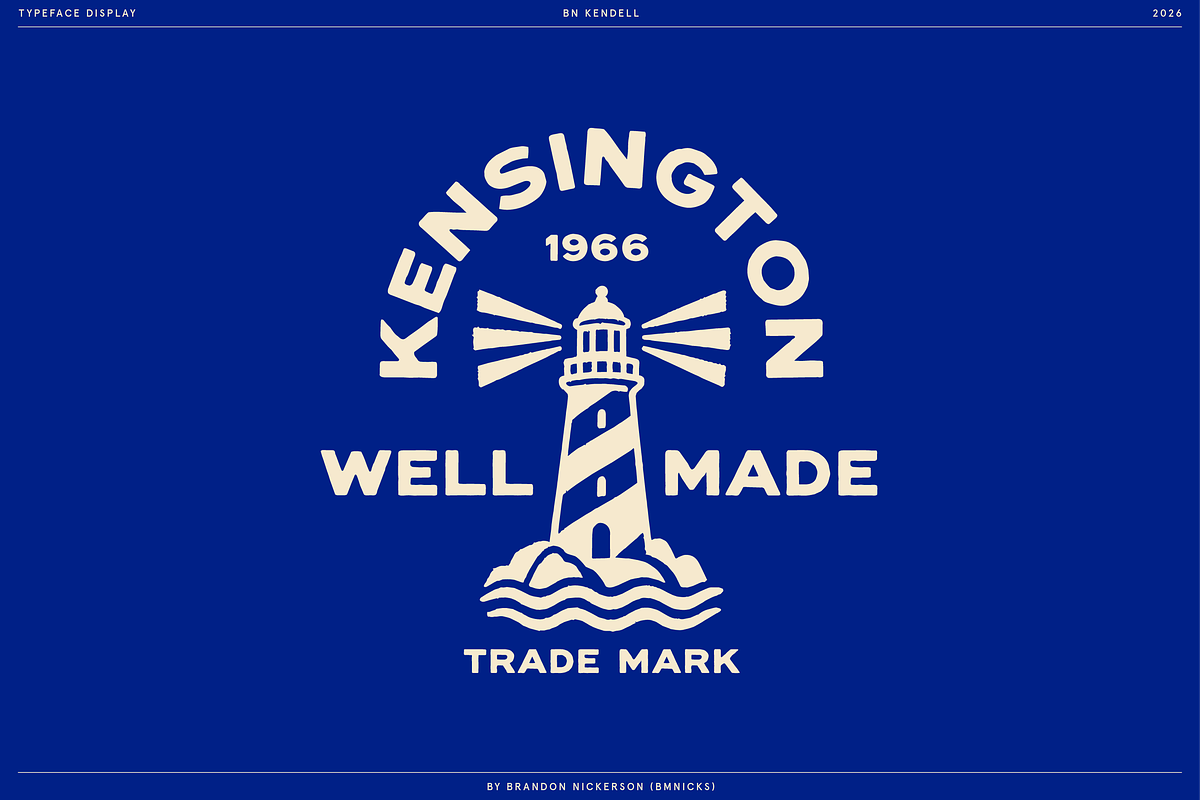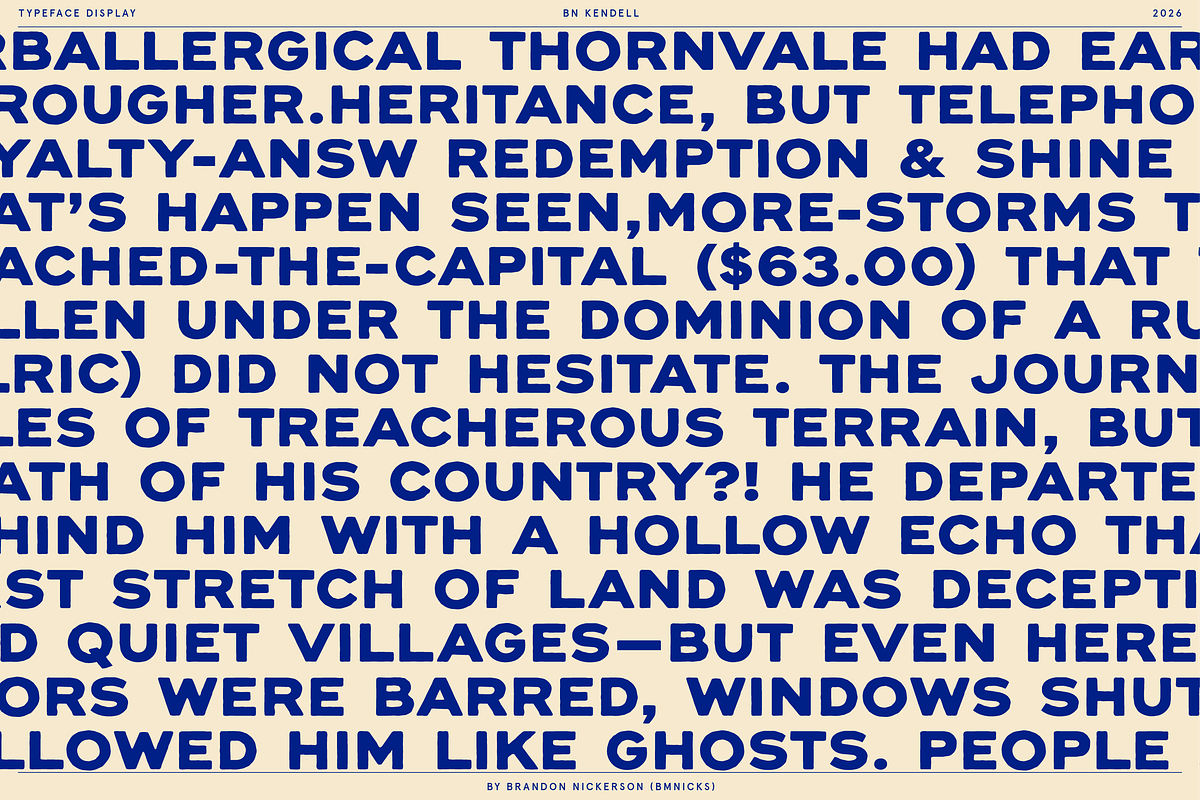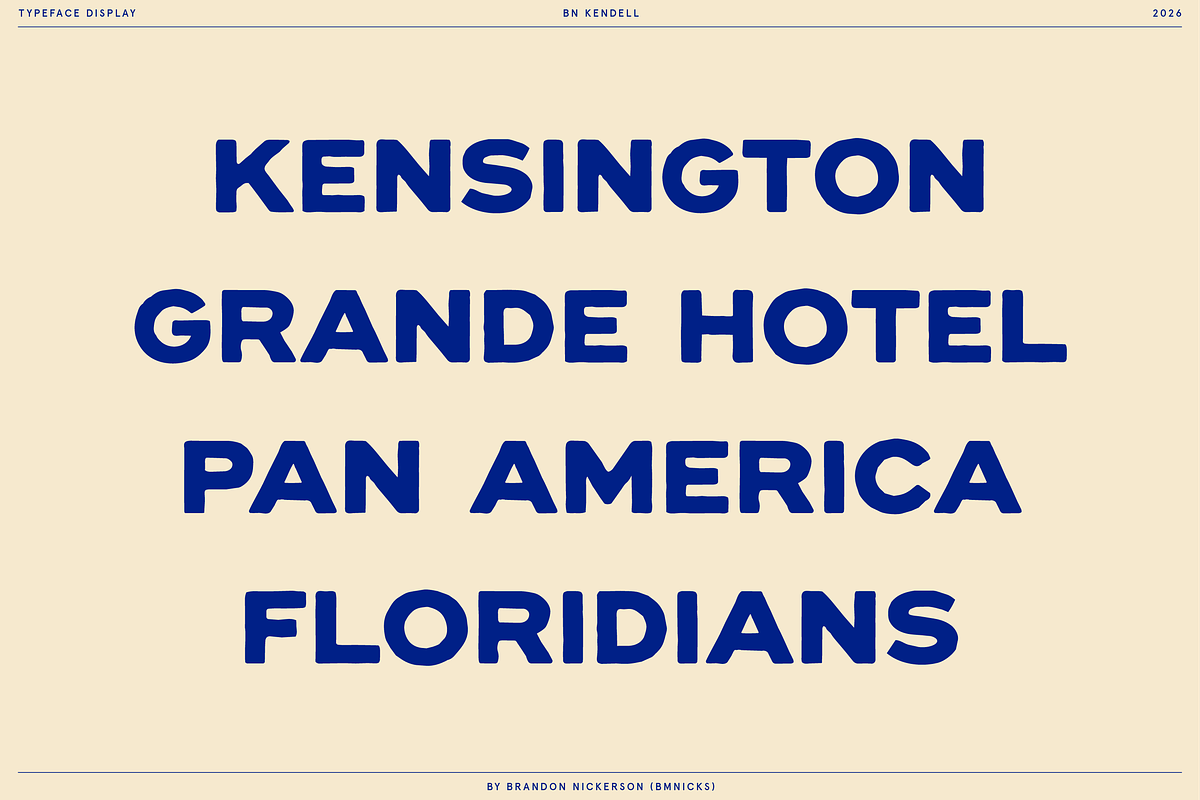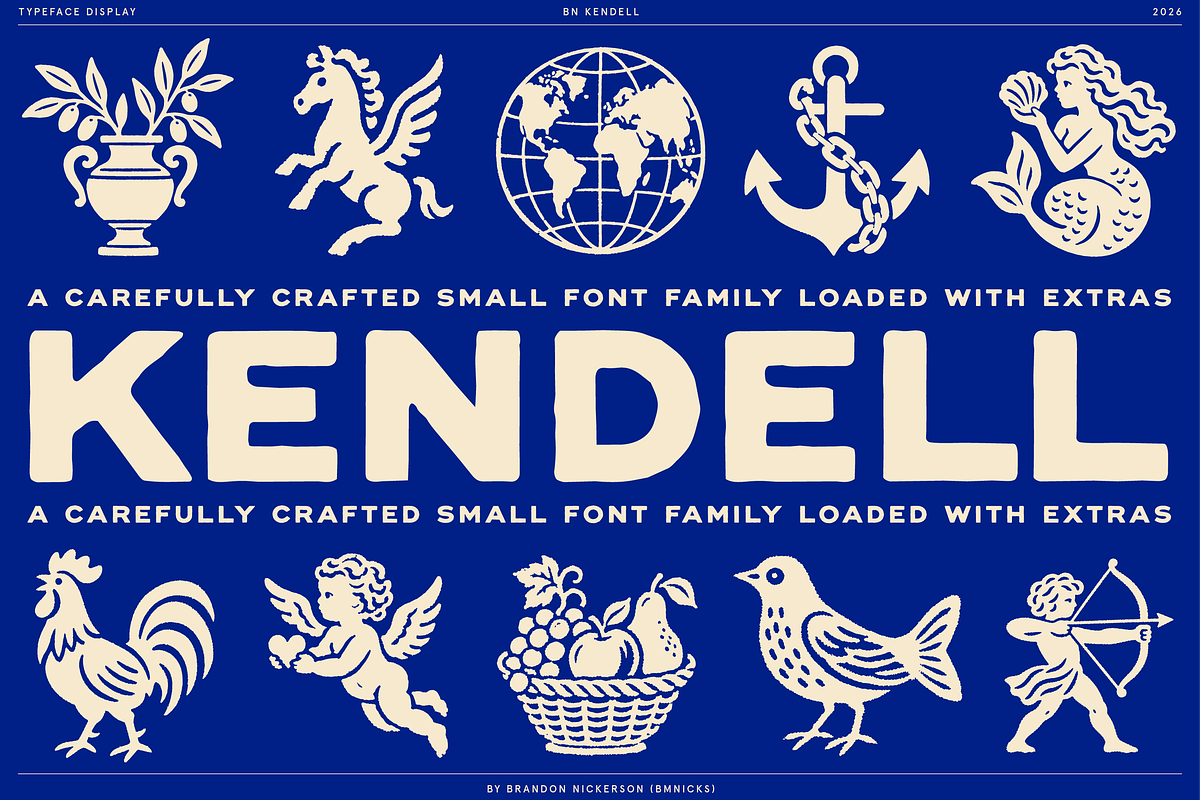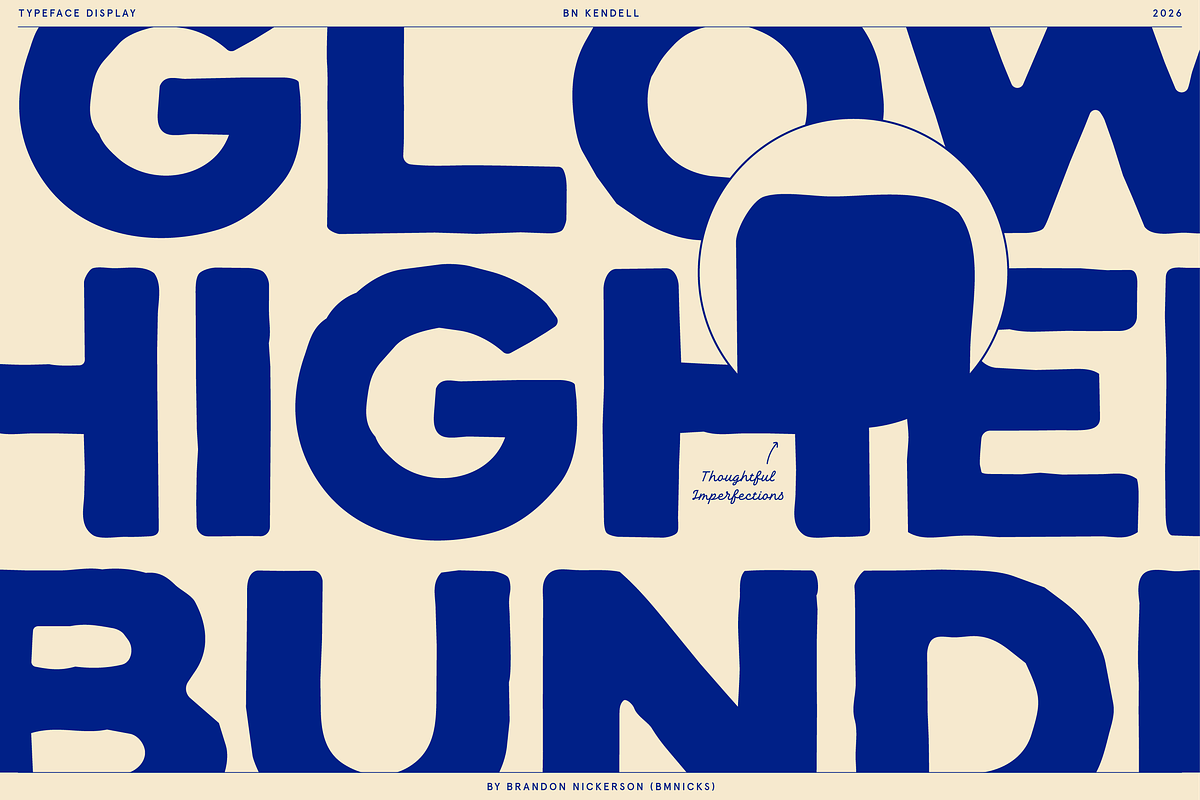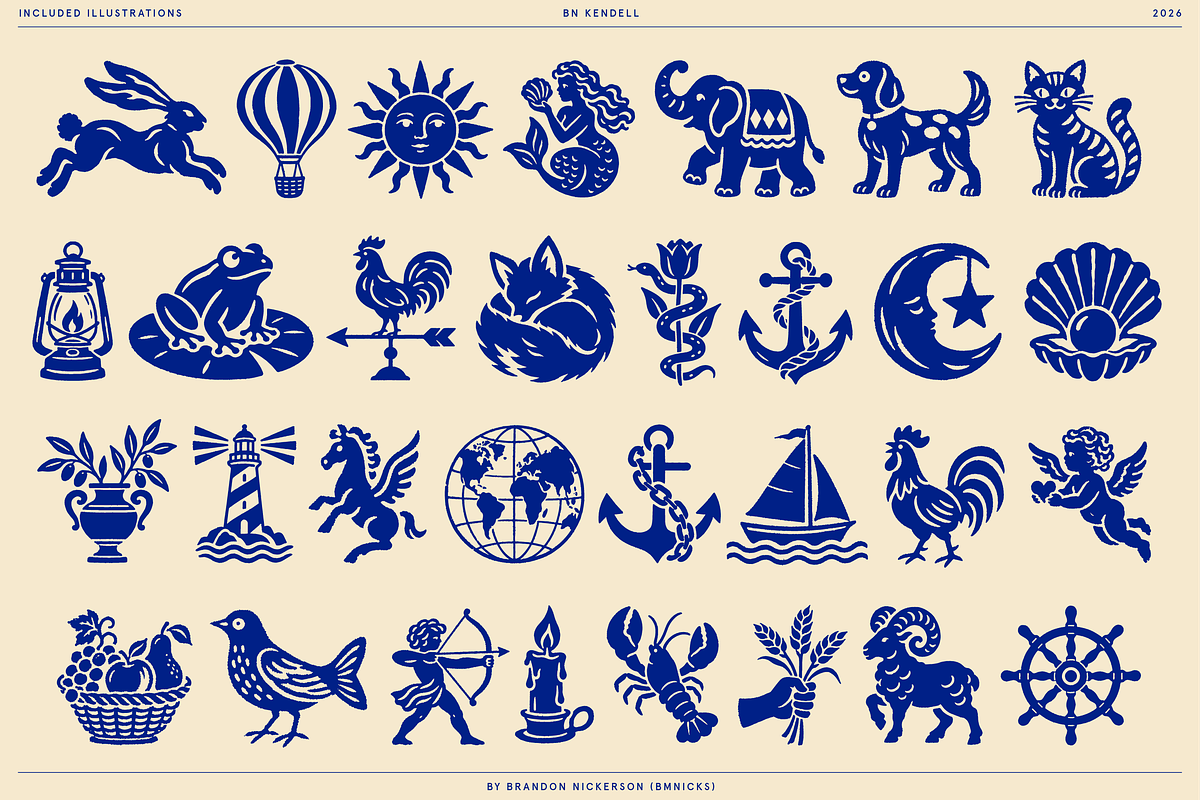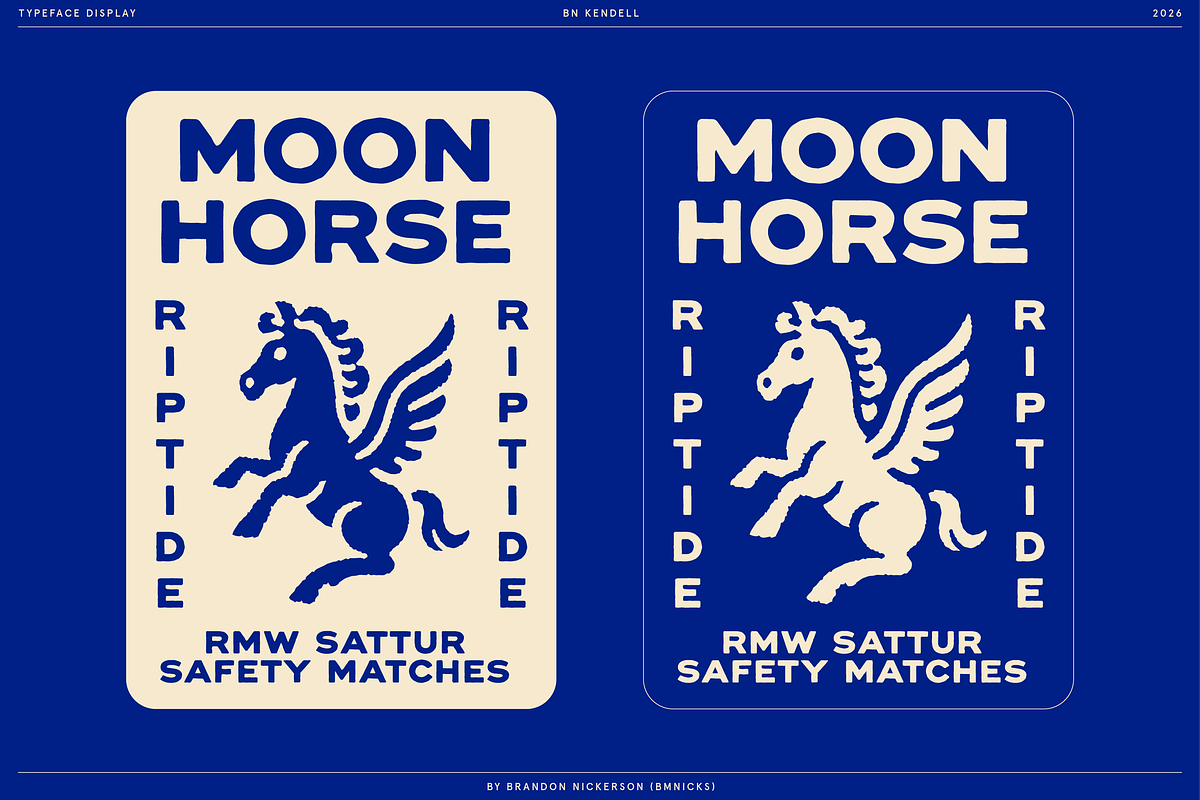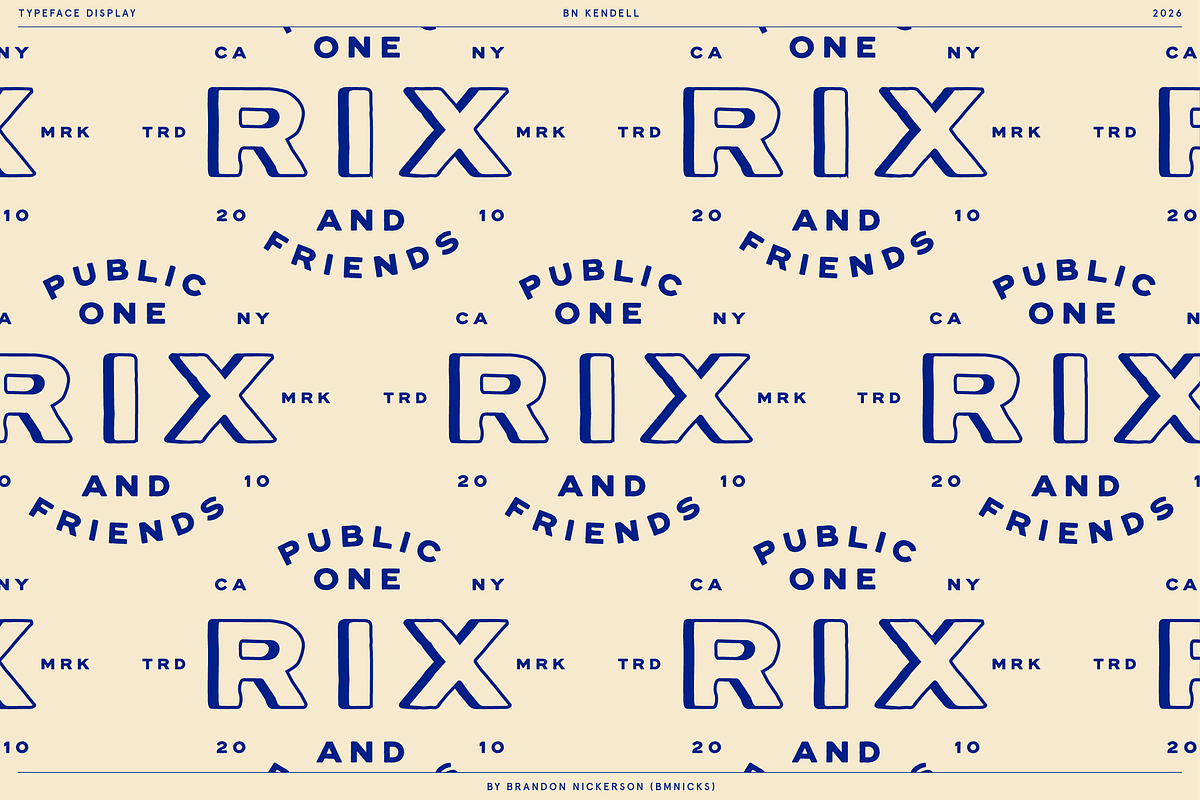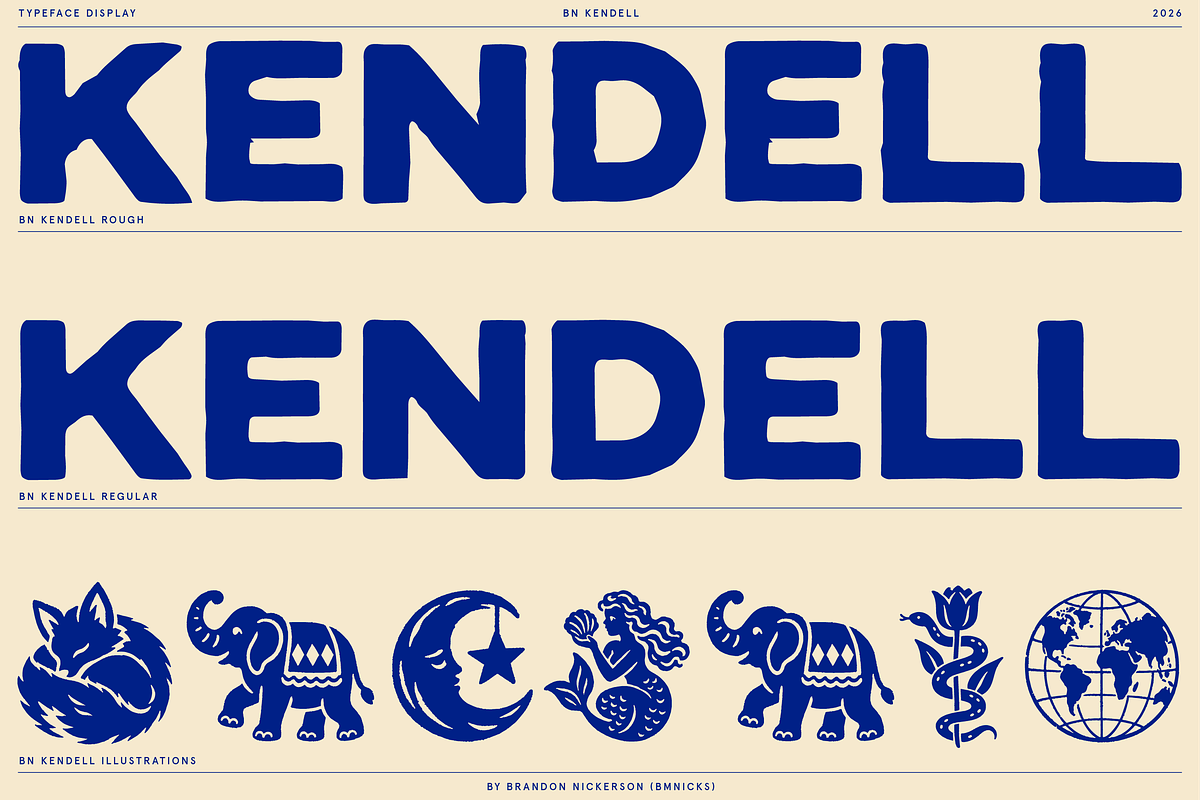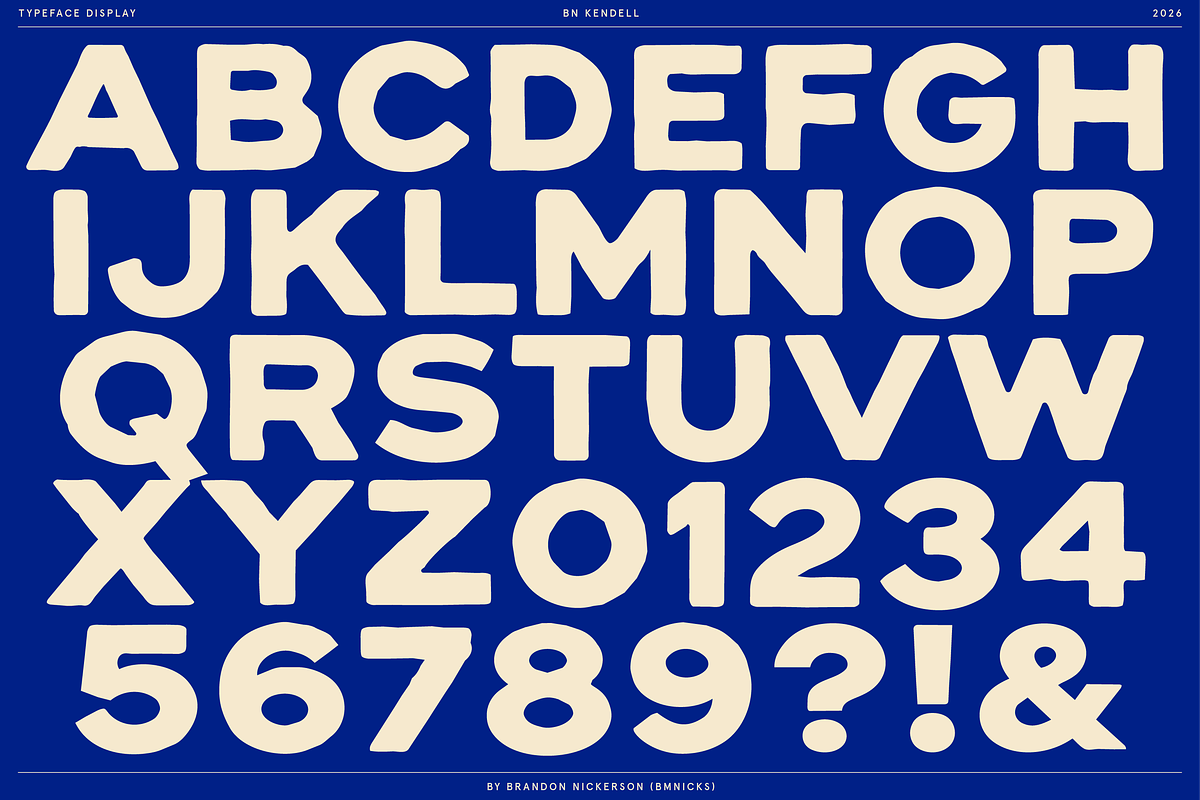
BN Kendell + Extras
BN Kendell
BN Kendell is a bold, hand-built display family inspired by vintage matchboxes, packaging, travel graphics, signage, and printed ephemera.
The letterforms are intentionally imperfect: sturdy, simple shapes with subtle irregularities that keep everything feeling warm, printed, and human instead of overly polished. It works especially well for branding, packaging, posters, apparel, editorial graphics, food and beverage projects, hospitality, labels, and anything that needs a strong vintage personality without feeling like a novelty font.
The family includes 3 total fonts:
BN Kendell Regular — the cleaner core style
BN Kendell Rough — a more distressed, printed variation
BN Kendell Illustrations — a dedicated illustration font loaded with custom vintage-inspired symbols and graphics
The illustration font was designed specifically to work alongside the two type styles, making Kendell feel more like a complete visual system than a standalone display face. It includes a wide mix of nautical symbols, animals, celestial graphics, heraldic imagery, fruit, florals, travel motifs, decorative objects, and more.
3 total fonts
BN Kendell Regular
BN Kendell Rough
BN Kendell Illustrations
Uppercase alphabet
Numerals
Punctuation and symbols
30+ custom illustrations
Designed for display use, branding, packaging, posters, and identity systems
Kendell is made for layouts that should feel bold, nostalgic, graphic, and slightly imperfect — the kind of type that feels pulled from an old matchbox, hotel sign, travel poster, or forgotten piece of packaging.
Ideal for
Branding, packaging, logos, labels, posters, apparel, matchbox graphics, restaurant identities, hospitality, editorial design, book covers, menus, merchandise, social graphics, and vintage-inspired design systems.